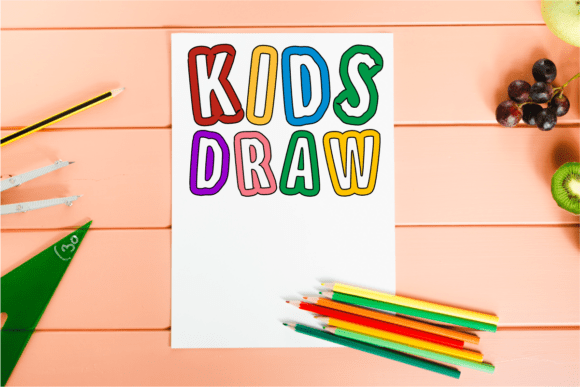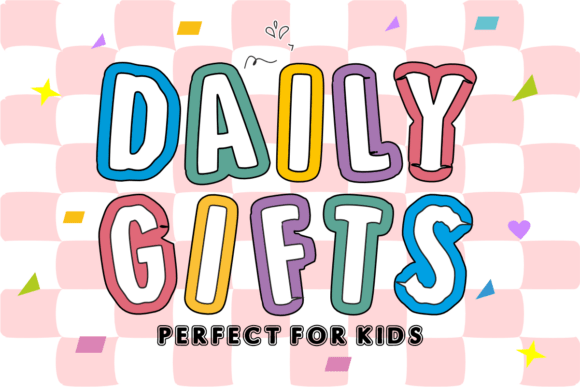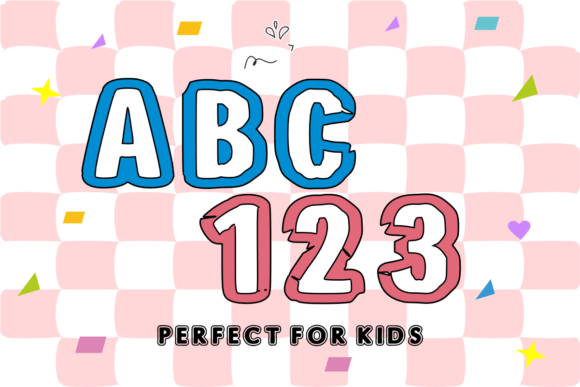
Introduction to Fancy Daily Font
Experience the charm of β€œFancy Daily,” an imaginative and contemporary font designed specifically for kids.
Crafted with uppercase letters exclusively, this playful font introduces a delightful persona within each character With a melody of unique and lively design, β€œFancy Daily” ensures each letter stands out, boosting recognition and injecting fun into learning.